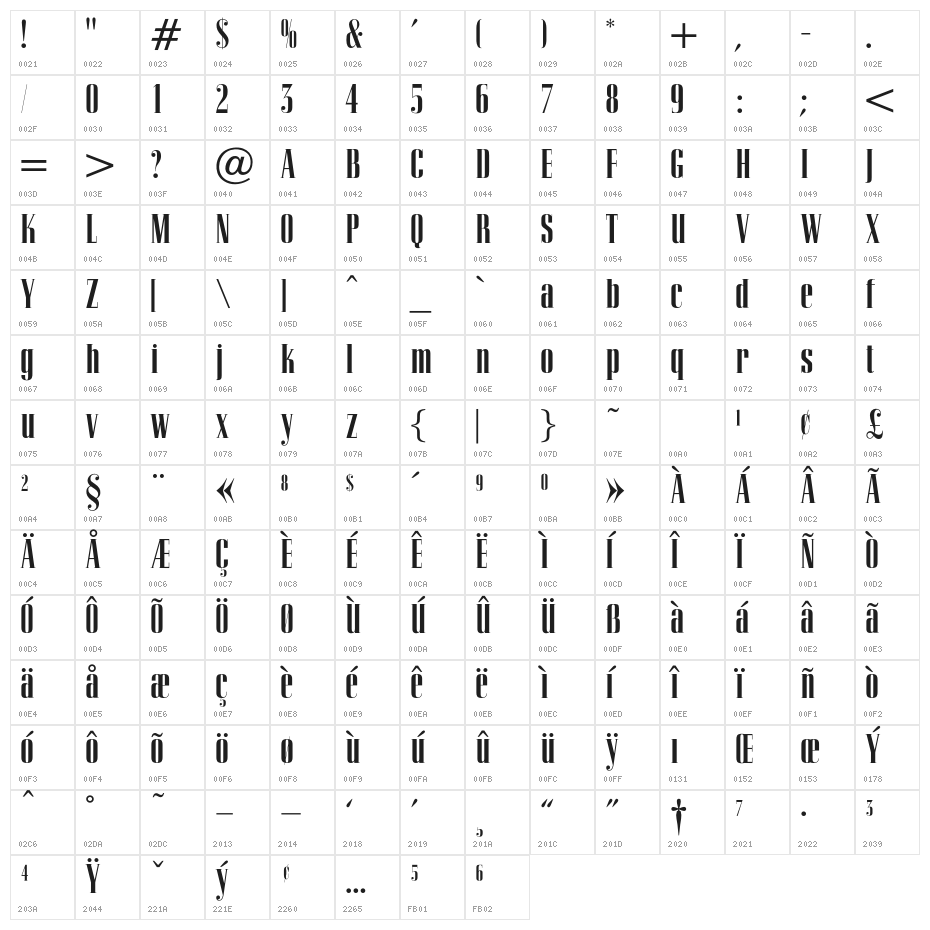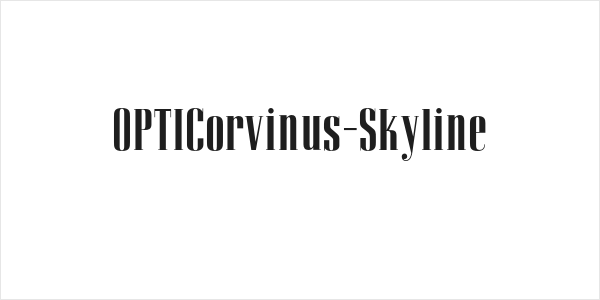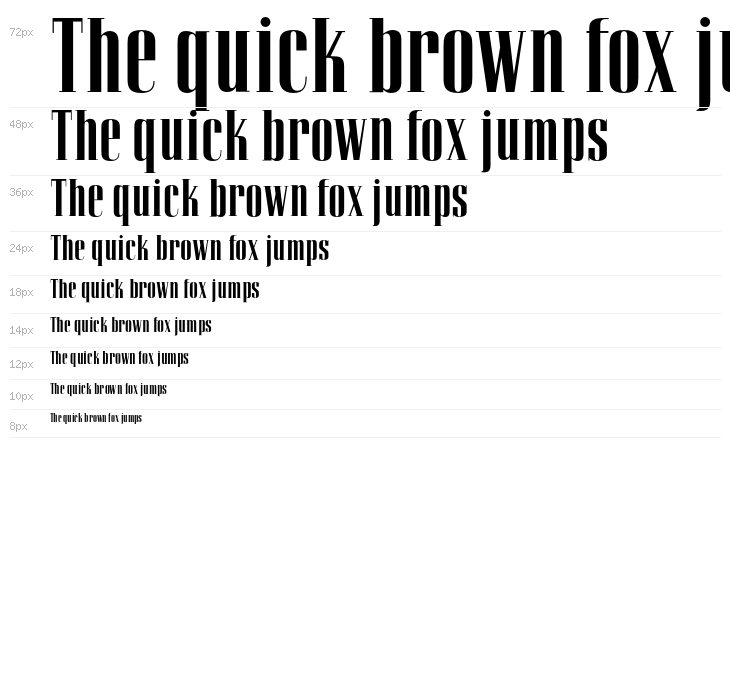
OPTICorvinus-Skyline Font
OPTICorvinus-Skyline Description
This font features a striking and bold design with tall, narrow characters that convey a sense of elegance and sophistication. The uppercase letters are particularly elongated, giving them a commanding presence, while the lowercase letters maintain a consistent style that complements the overall aesthetic. The numerals are distinct and easy to read, with a slight flair that adds character. Special characters are well-integrated, maintaining the font's cohesive look. The high contrast between thick and thin strokes enhances its visual impact, making it suitable for attention-grabbing designs.
| Proposed Projects | Ideal for luxury branding, magazine headlines, fashion editorials, and high-end product packaging. |